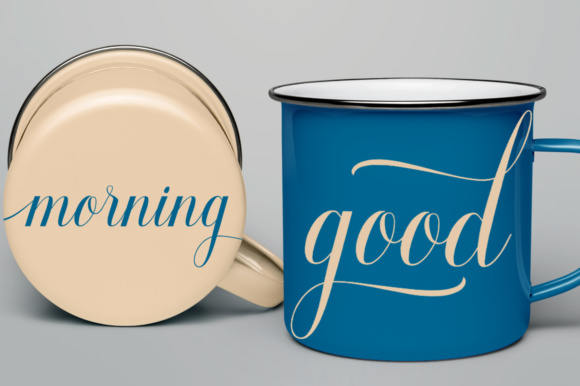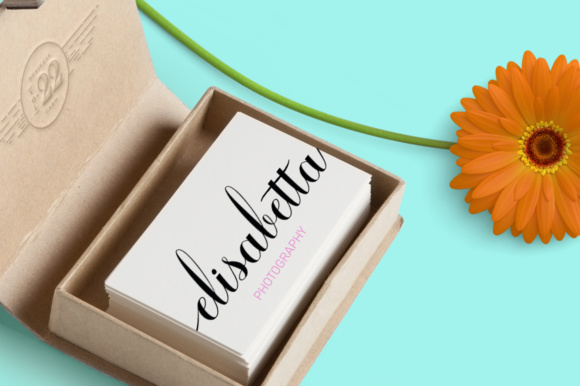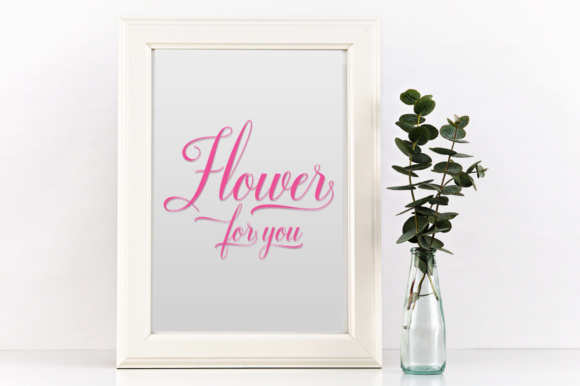
Introduction to Smoothline Script Font
The Smoothline is a modern handwritten script.
It’s easy to use and has a great readability Perfect for branding designs.
Key Features of Smoothline Script Font